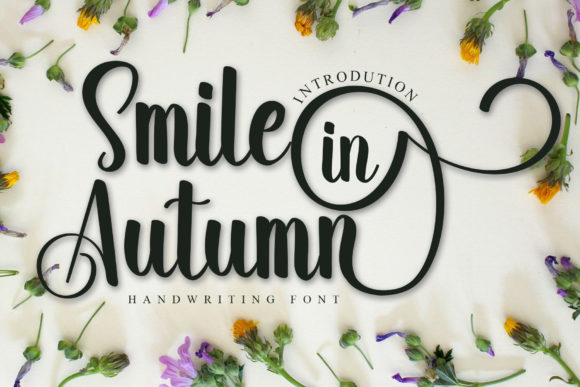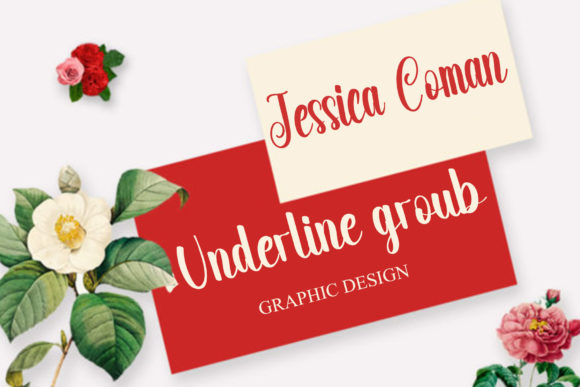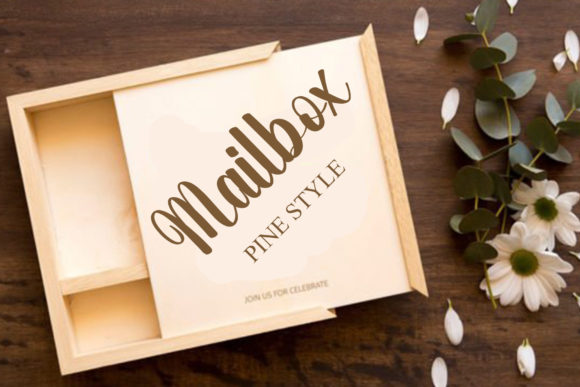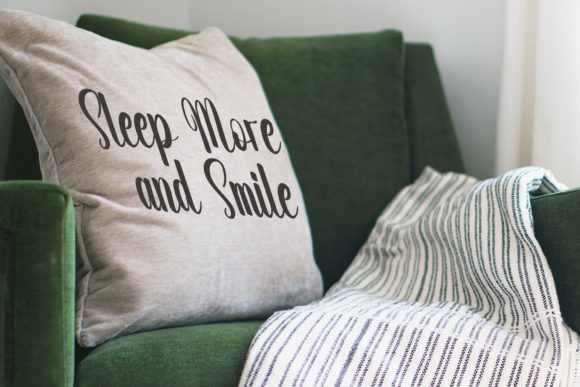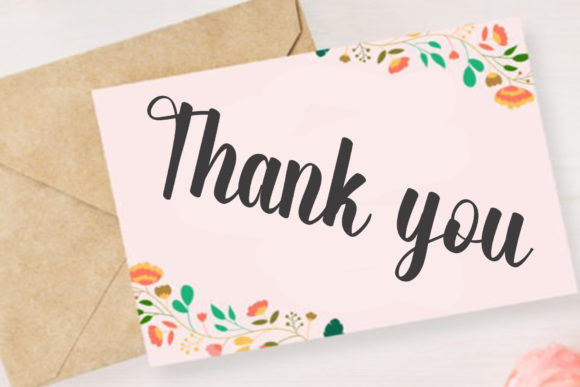
Smile in Autumn Font
About Smile in Autumn Font
Smile In Autumn is a sweet and delicate handwritten font. Dainty and joyful, this font will be ideal for writing wedding invitations, cards or any other design that may need a romantic, personalized touch!